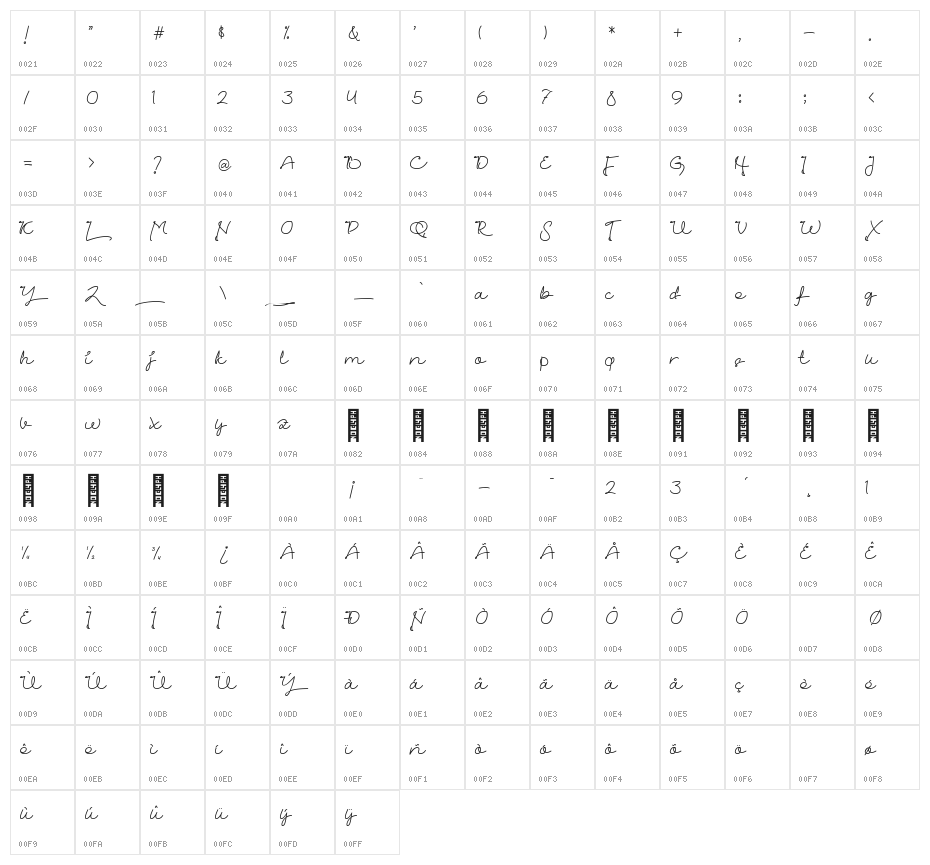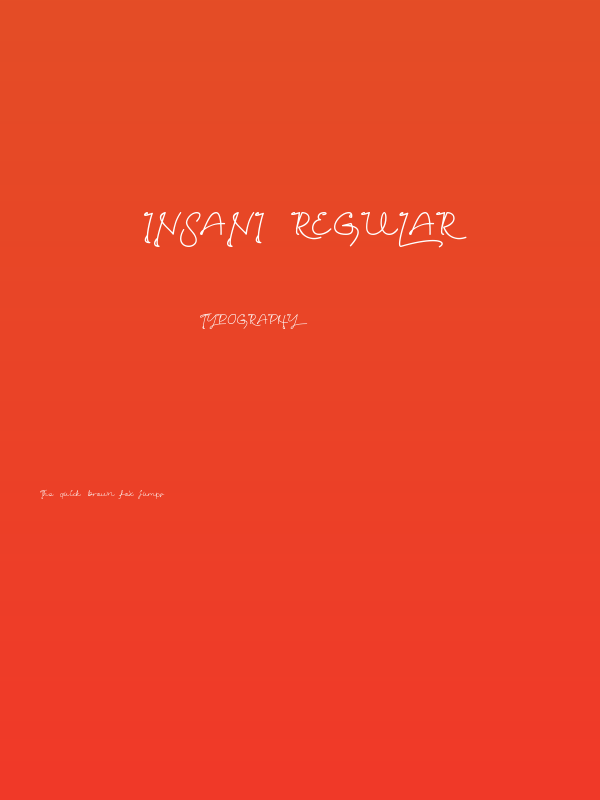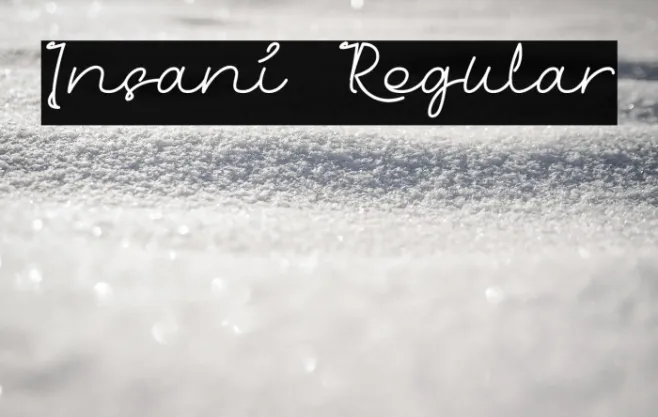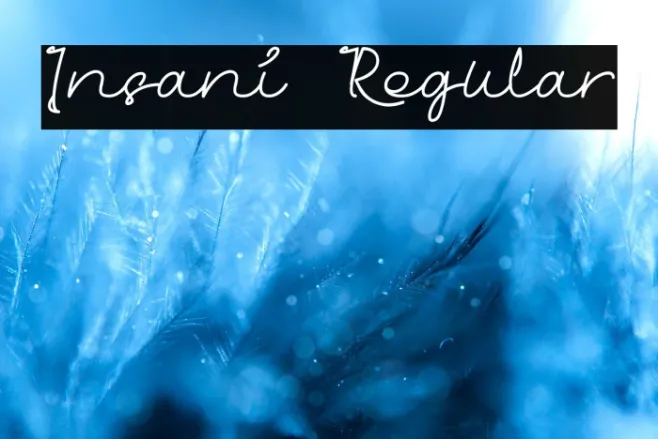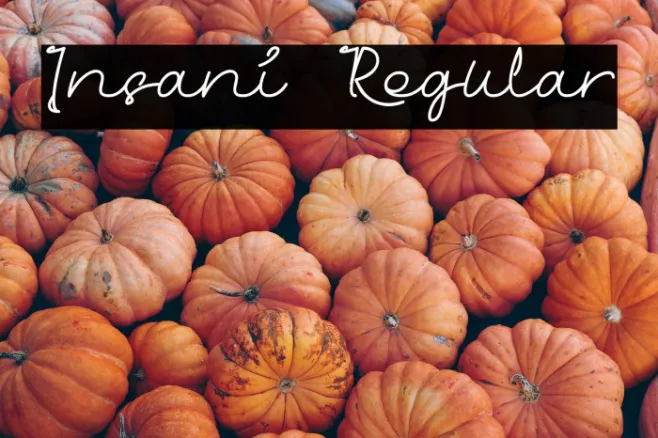
Insani Regular Font
Insani Regular Description
This font exhibits a flowing, cursive style that mimics elegant handwriting. The characters are connected, creating a seamless and fluid appearance. The uppercase letters are slightly more embellished, with subtle loops and curves that add a touch of sophistication. The lowercase letters maintain a consistent flow, enhancing readability while retaining an artistic flair. Numbers and special characters are designed to match the overall aesthetic, ensuring a cohesive look across all text elements. The font's delicate strokes and graceful curves make it suitable for projects that require a personal or artistic touch.
| Overall Style | Elegant, Artistic |
| Use Case | Logos, Invitations, Artistic Text |
| Proposed Projects | Ideal for wedding invitations, greeting cards, personal branding, and artistic projects. |